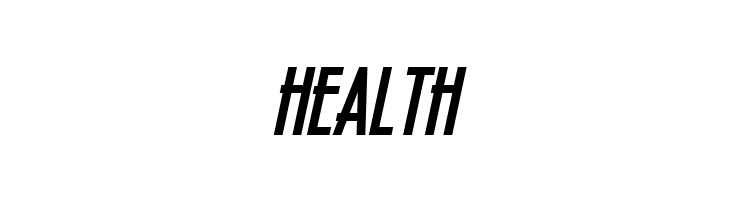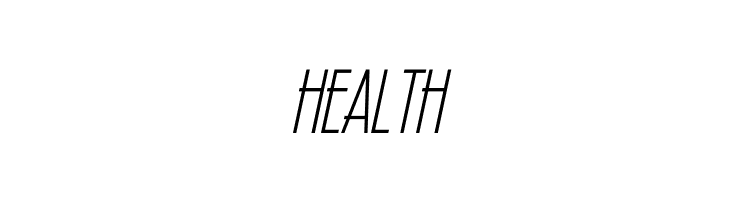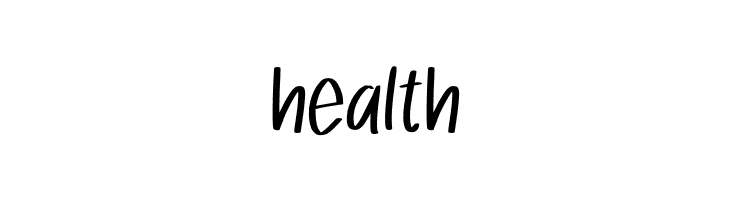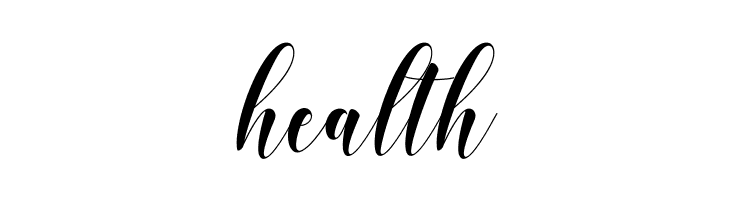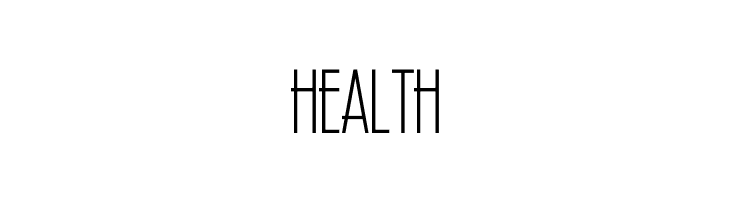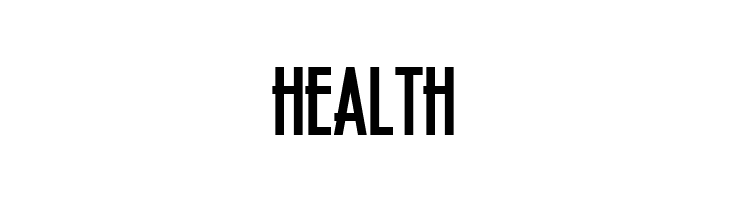
A bold, italicized font with a modern, dynamic style and medium contrast.
A tall, narrow font with a modern, geometric style.
A sleek, italic font with elongated, narrow characters and a modern aesthetic.
A classic serif font with elegant curves and balanced proportions.
A modern, geometric font with rounded edges and consistent stroke widths.
A playful, handwritten font with smooth, flowing lines and a lively character.
A bold, brush-style font with a dynamic, hand-painted look.
An elegant script font with flowing, cursive letters and high contrast strokes.
A modern, tall, and narrow font with clean lines and minimal curves.
A bold, modern font with a geometric and condensed style.